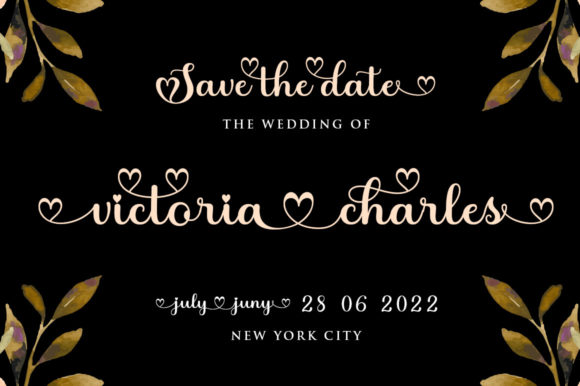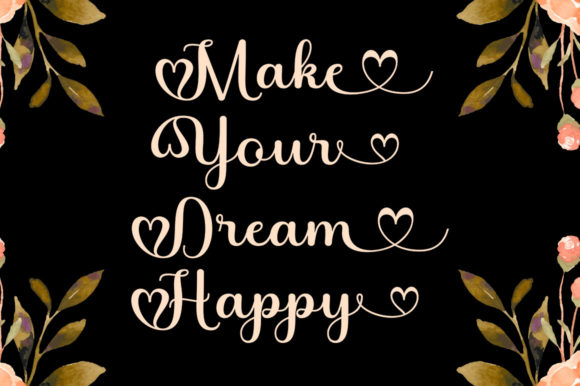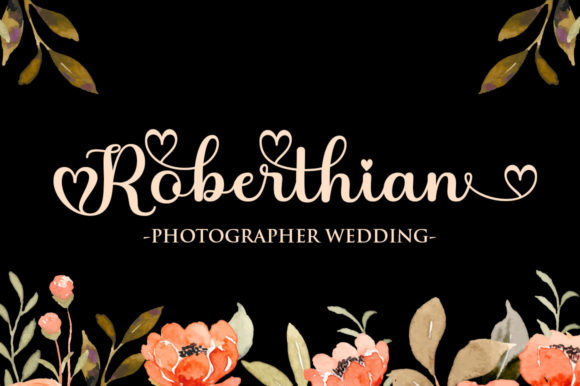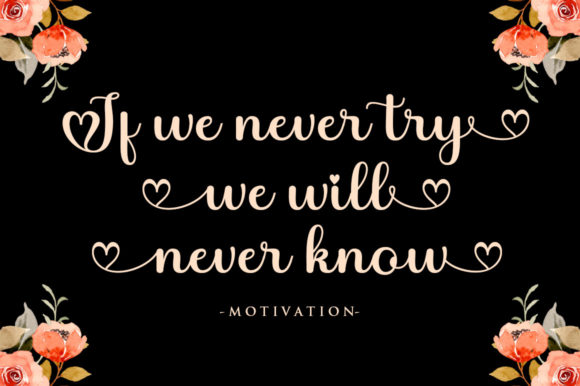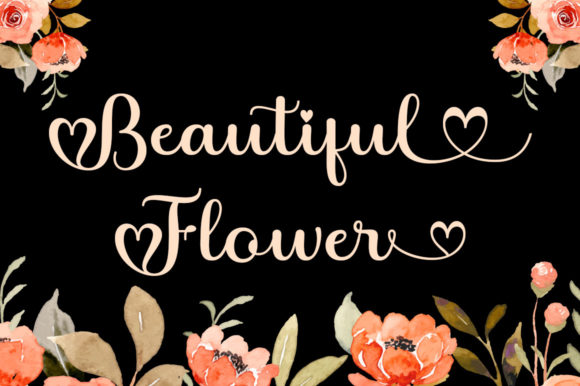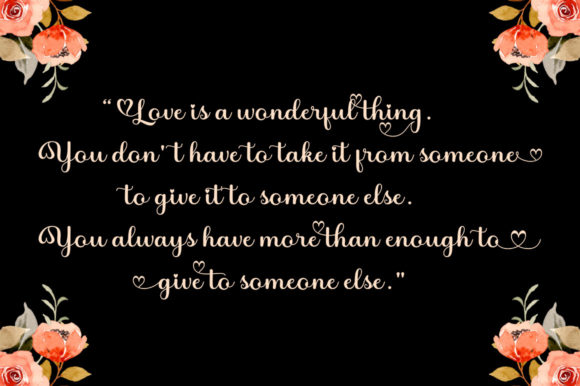
Introduction to Jully Julia Font
As a designer, there’s nothing quite like the thrill of bringing a creative project to life. You’ve poured your heart and soul into every detail, from the initial concept to the final touches. But sometimes, it’s the smallest elements that can make all the difference – a perfectly chosen font, for instance. That’s where Jully Julia Font comes in, a sophisticated handwritten font that exudes confidence, authenticity, and charm.
Imagine being able to elevate your designs with a font that’s both elegant and approachable, perfect for delivering any message with warmth and personality. Whether you’re working on a branding project, creating custom labels, or crafting heartfelt cards, Jully Julia Font is the perfect design resource to help you shine.
Key Features of Jully Julia Font
- Unique, hand-drawn design elements that add a touch of elegance and sophistication to any design project.
Honest Review: Jully Julia Font
I recently stumbled upon the Jully Julia Font, and I must say it’s been a great addition to my design resources. This font is perfect for any creative project that requires a touch of elegance and sophistication.
What doesn’t work well: ⚠️ While the Jully Julia Font is a great resource, it may not be suitable for projects that require a more playful or casual tone. The font’s elegant style may come across as too formal for certain designs.
Overall impression: I’m really impressed with the Jully Julia Font. It’s a high-quality design resource that’s perfect for designers looking to add a touch of sophistication to their projects. While it may not be suitable for every project, it’s definitely worth checking out for any design that requires a more elegant tone.
Tips for Getting the Most Out of Jully Julia Font
Jully Julia Font is commonly used for creative projects such as social media graphics, presentations, and reports. Its high quality and transparent background make it a great design resource for various industries and applications.